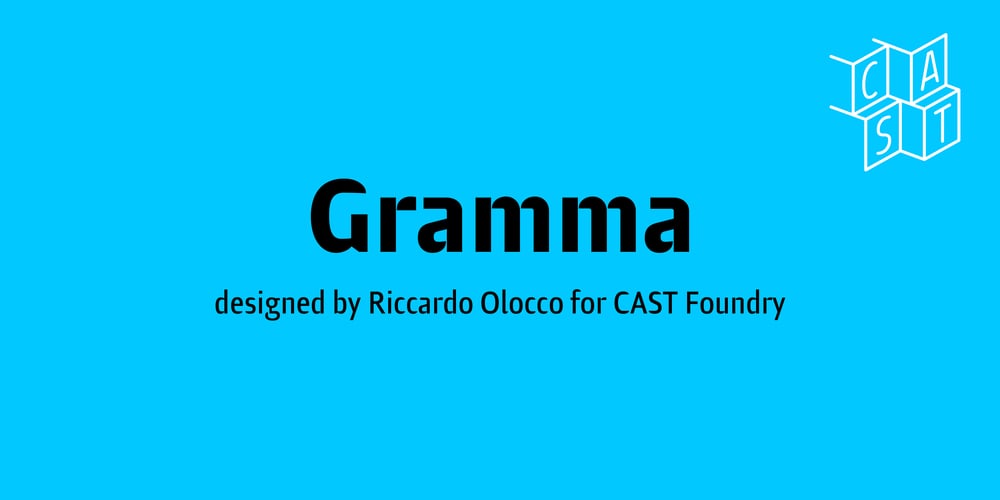
Gramma Font Family was designed by Riccardo Olocco and published by CAST. Gramma contains 10 styles and family package options. Gramma is a compact sans with big x-height, a robust and balanced typeface that work well both for headlines and main bodies of text. The initial constructions, assembled from a few well-defined geometric modules, were later polished into more organic forms; the letters’ arches are quite squared, and the counters and other internal negative spaces push outward, creating a tension that balances the forms’ compression. Gramma’s most evident characteristic is its “bird-beak” terminals (present in many letters, including the c, e, f, s…) that replicate the unconnected junctures between stem and curve, visible in the a,b,d,g,h.